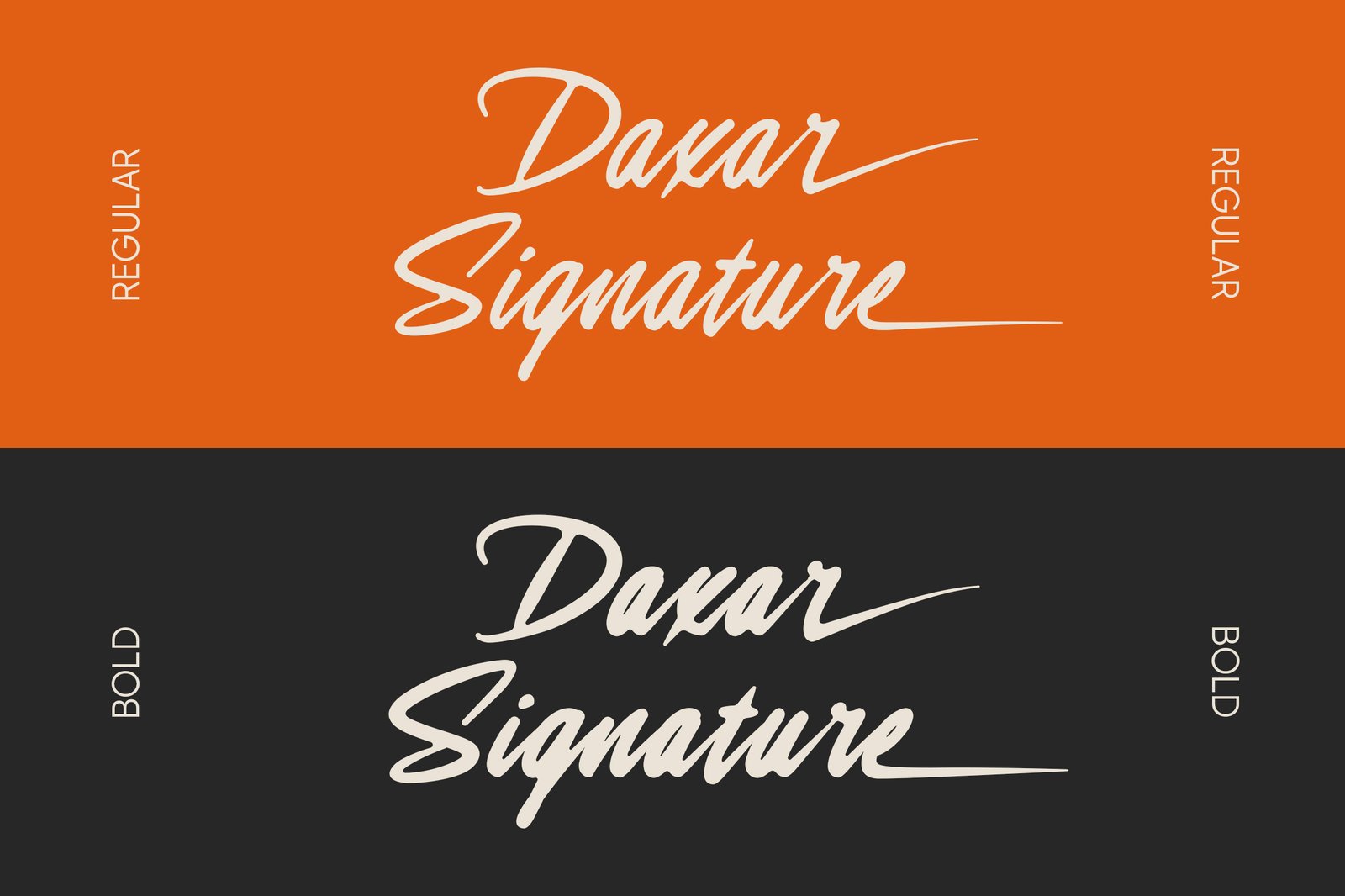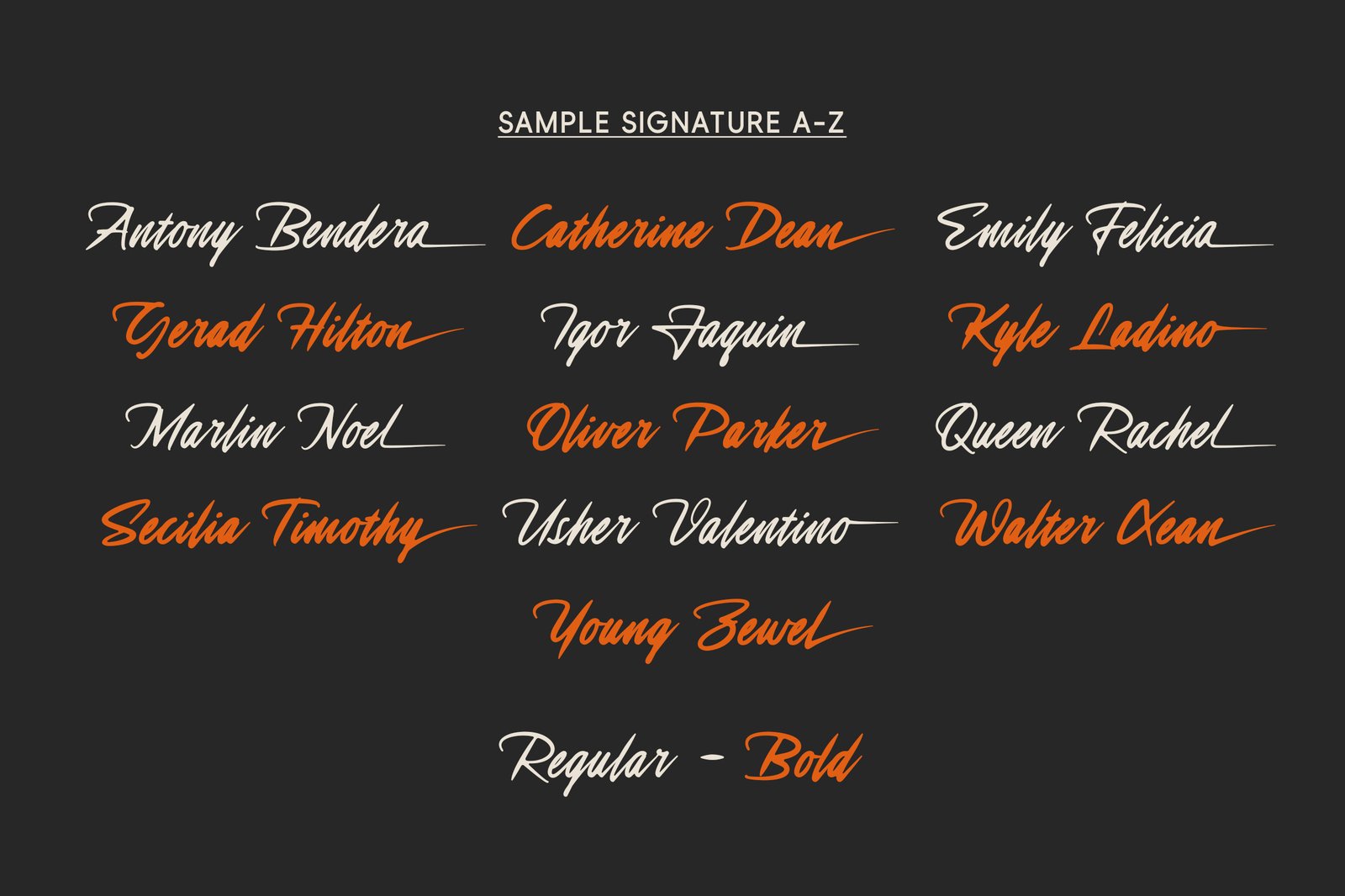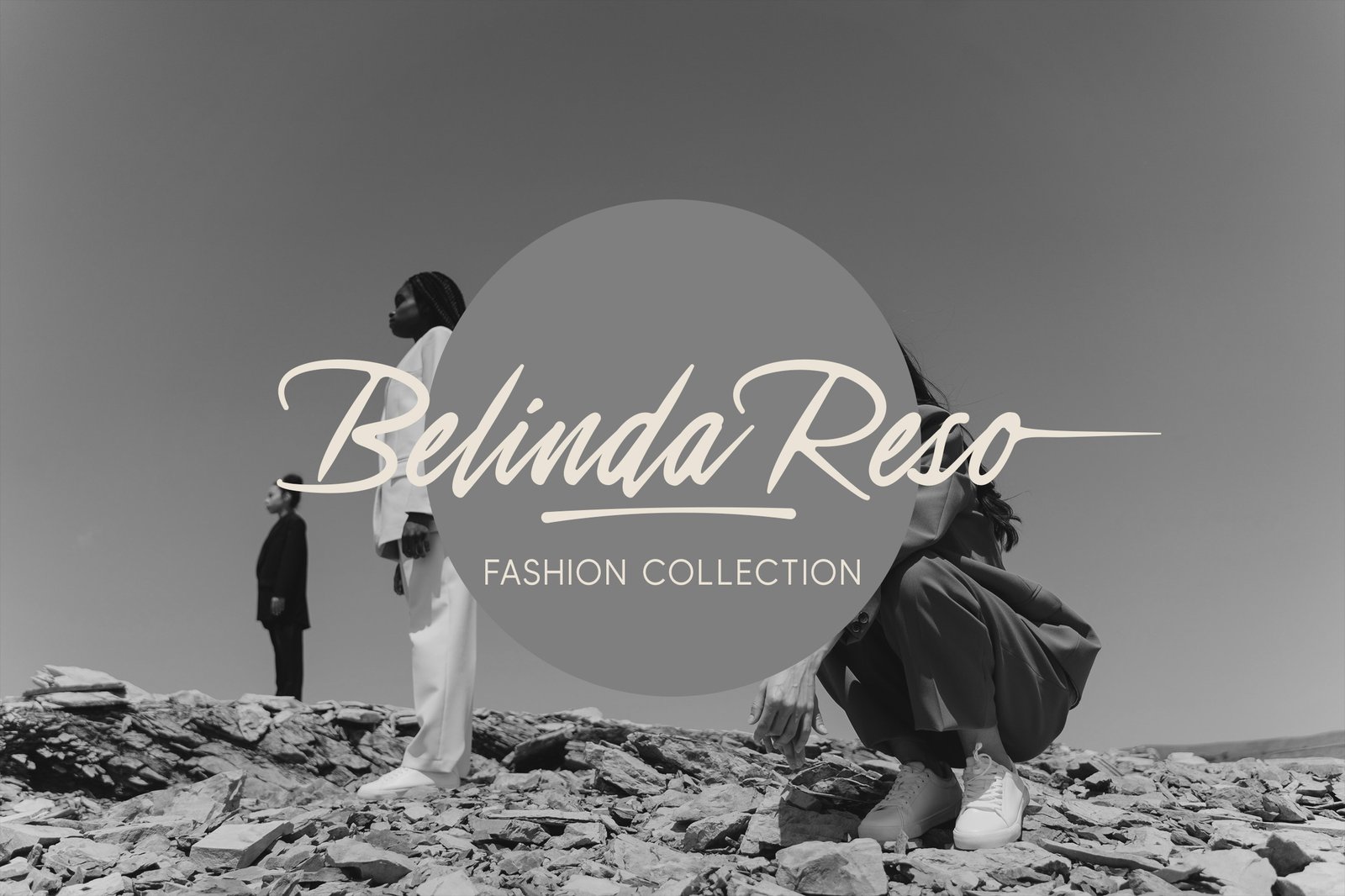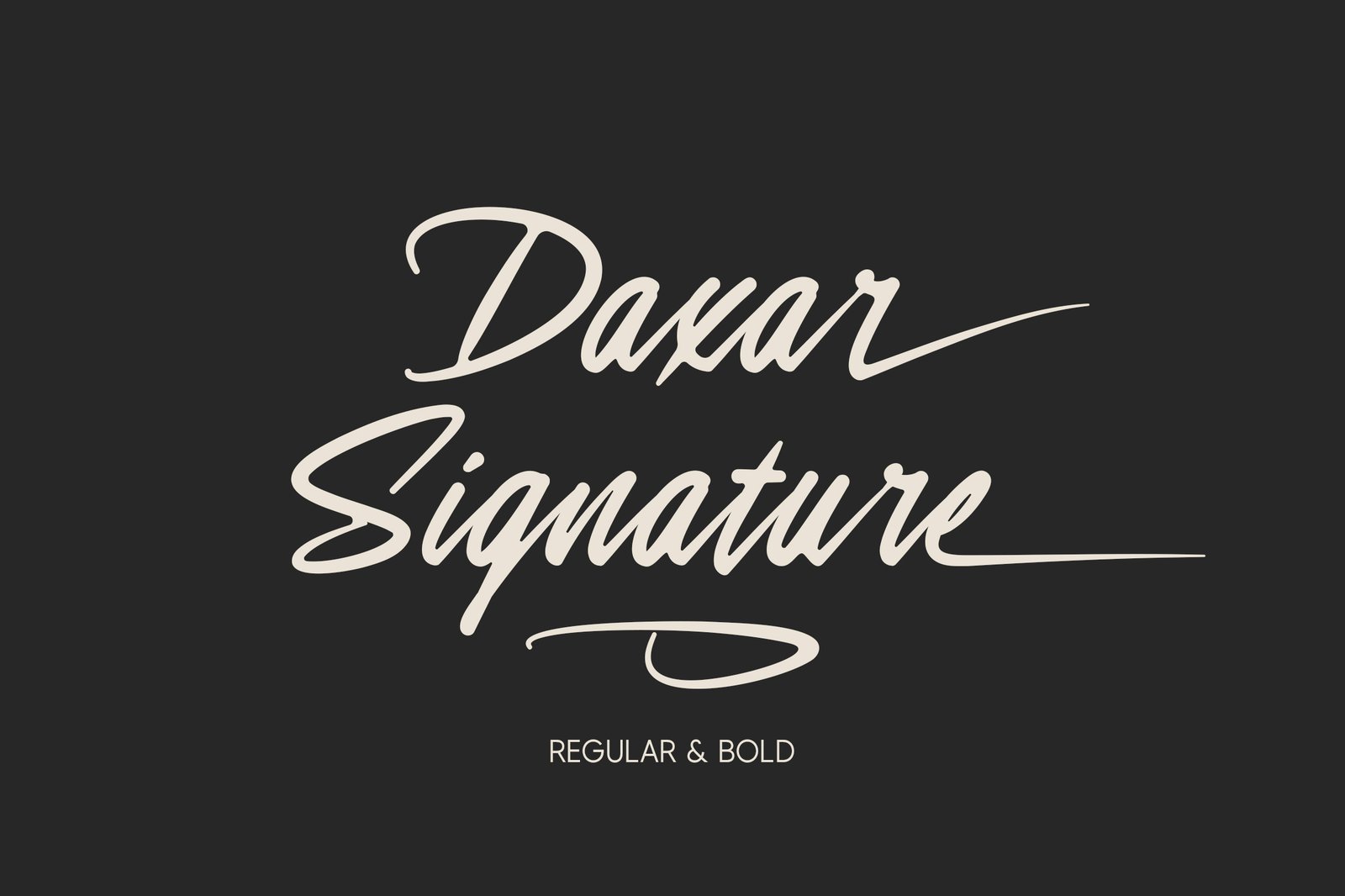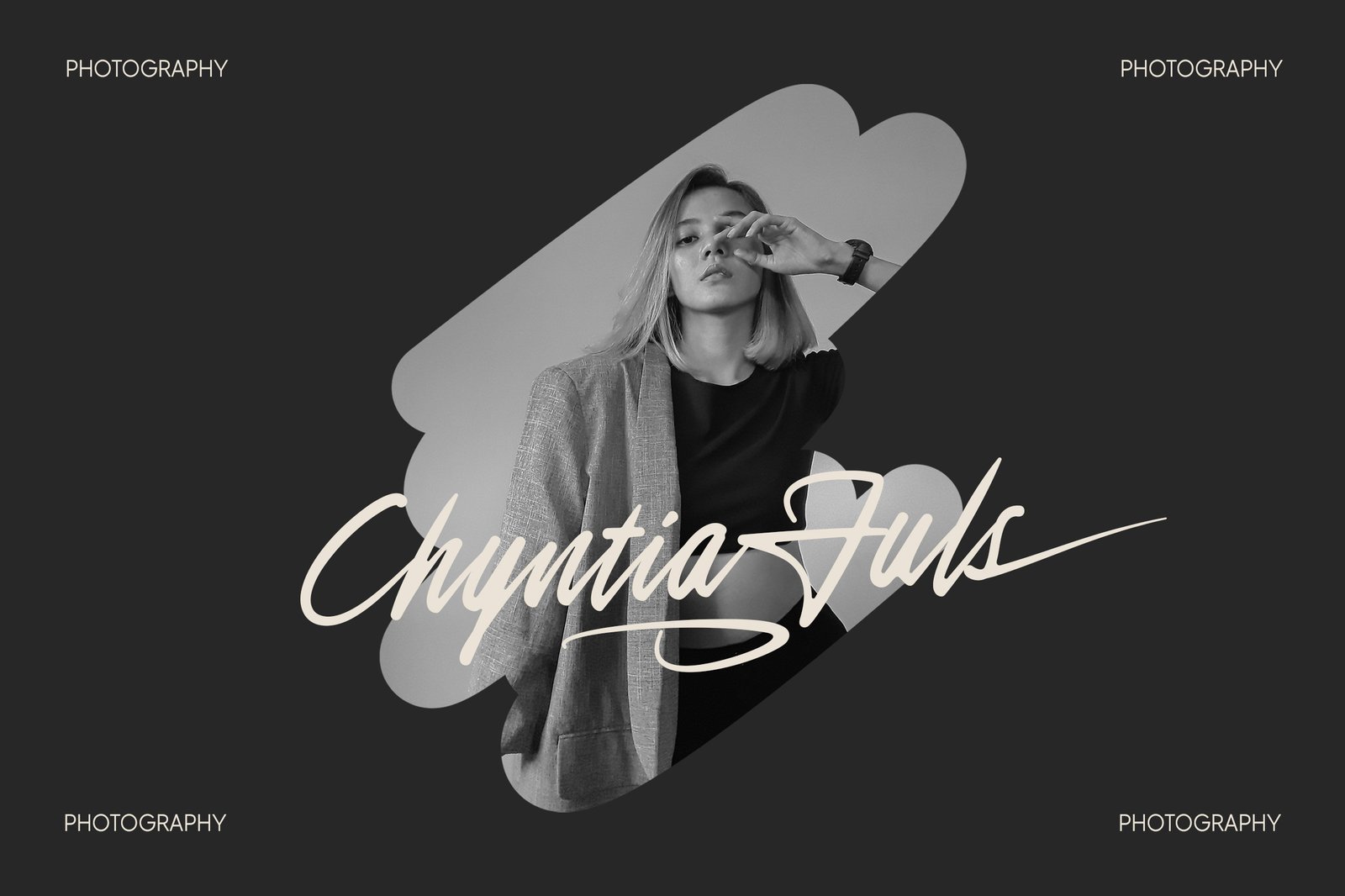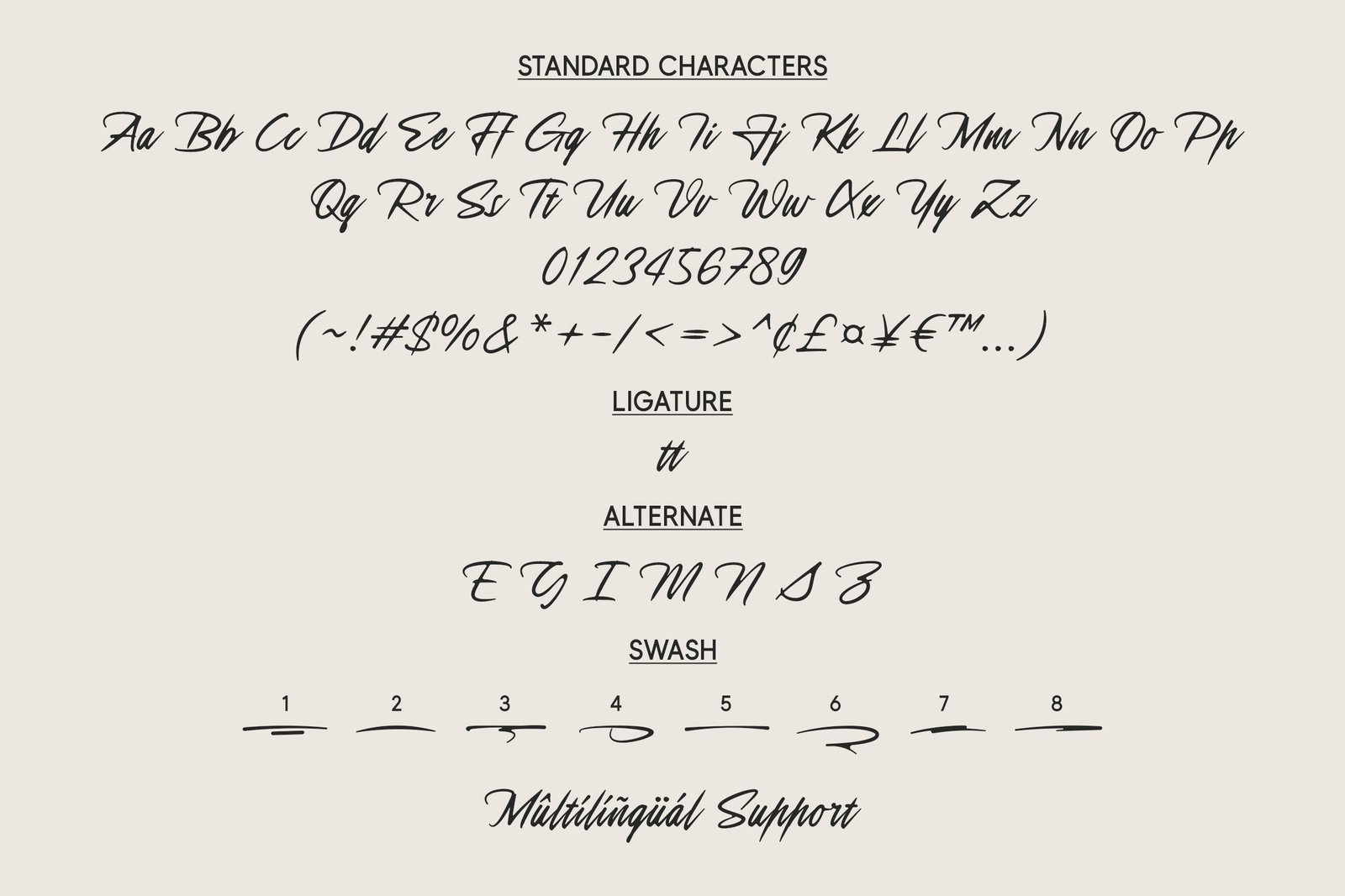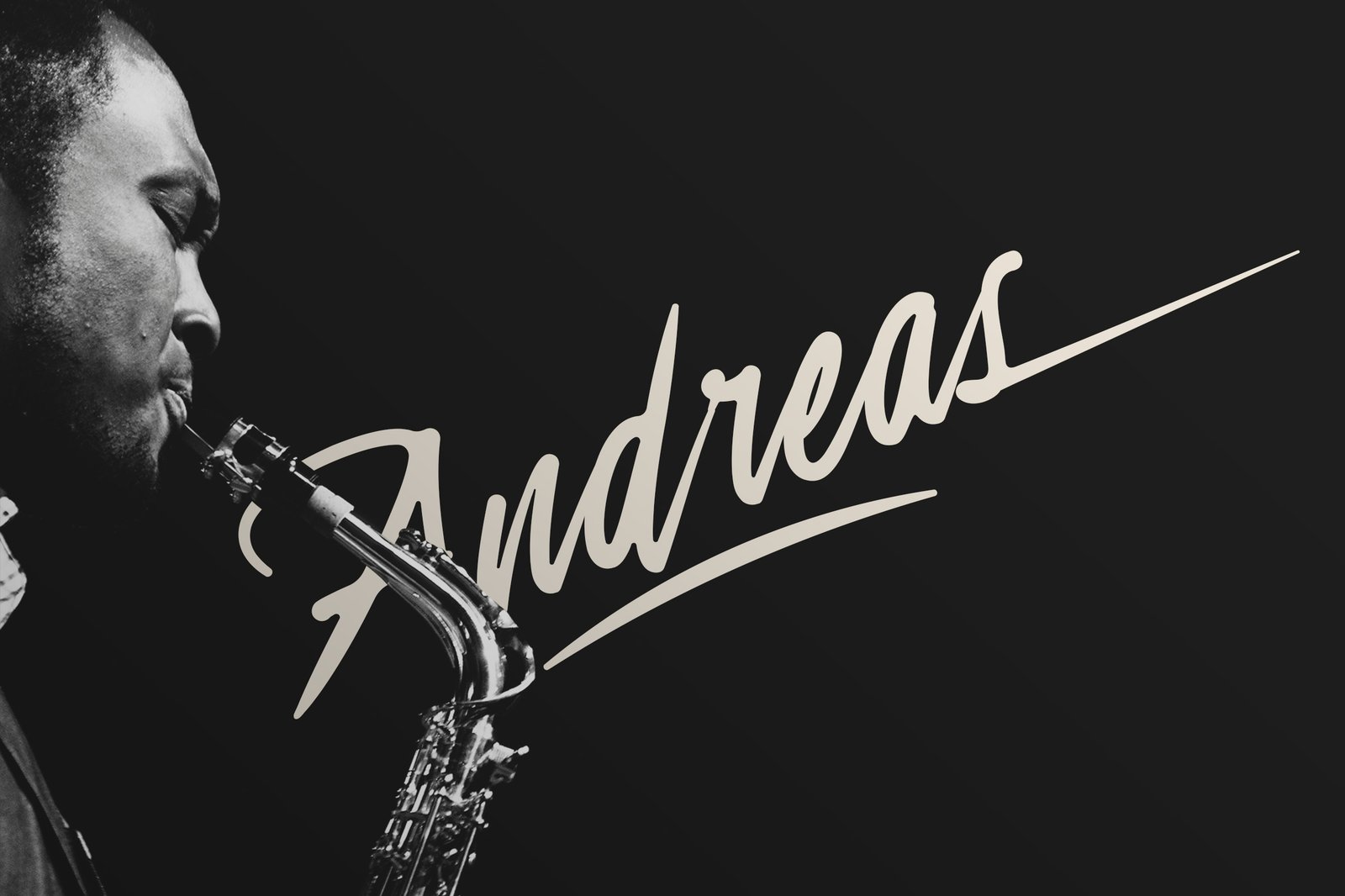
Daxar Signature Font
Daxar Signature is a signature script font with two style variants: Regular and Bold. Offering flexibility in expressing your message with clarity and firmness. Each letter is designed with precision to give an elegant yet bold impression. Suitable for various projects such as logos, branding, business cards, signatures, posters, labels, titles, and more.